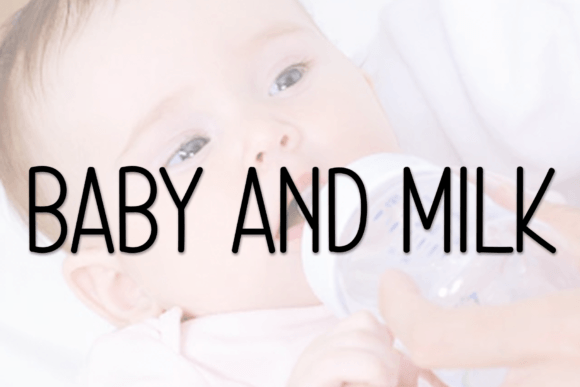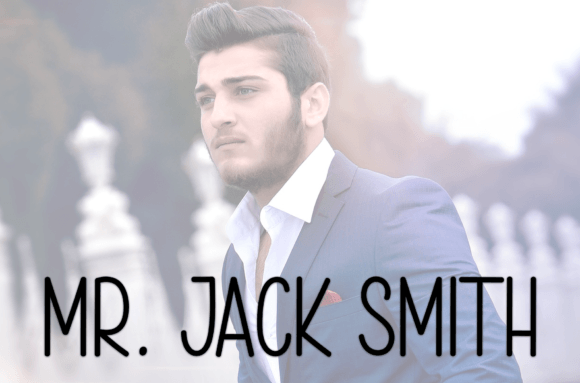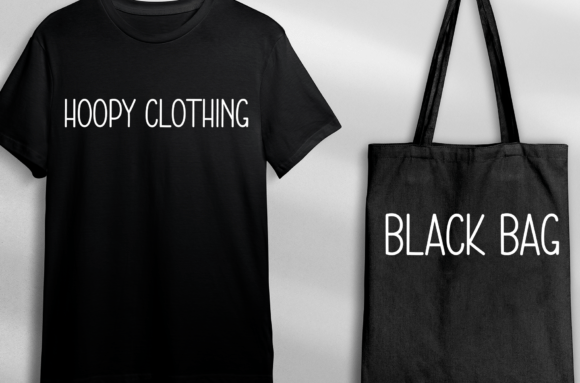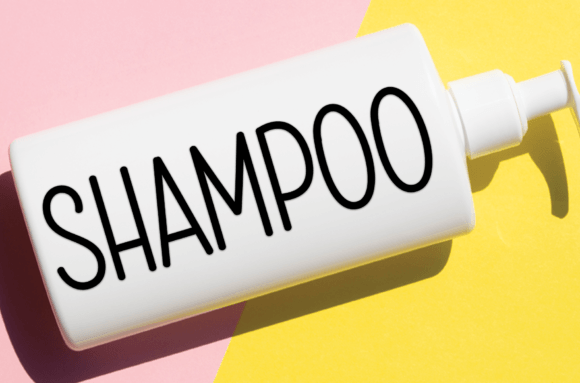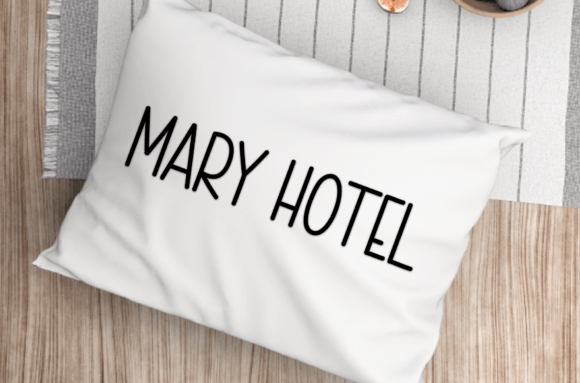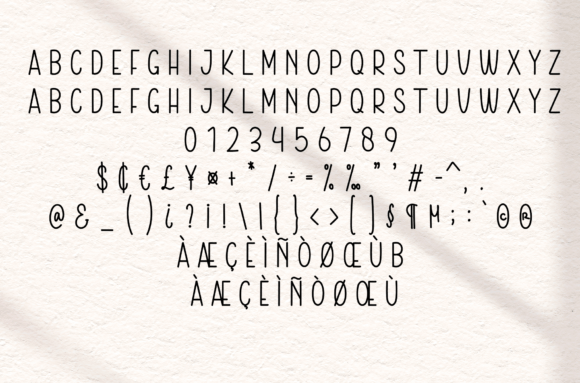
Baby and Milk
About Baby and Milk
this is a sweet and friendly handwritten display font. Cute and fun, this font is ideal for writing wedding invitations, cards, or any other design that might need a fun touch!